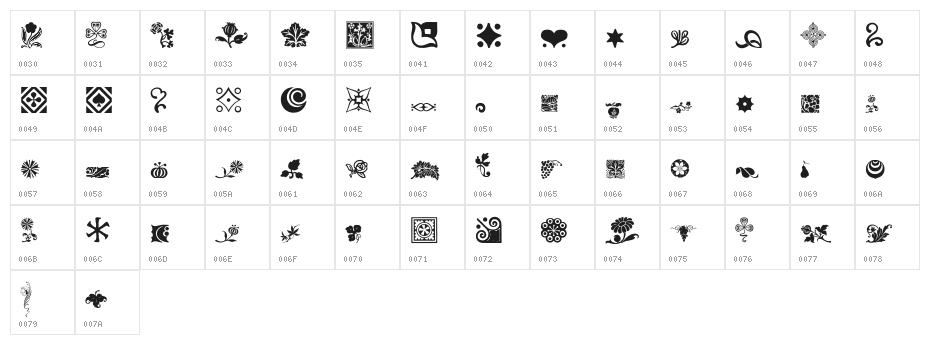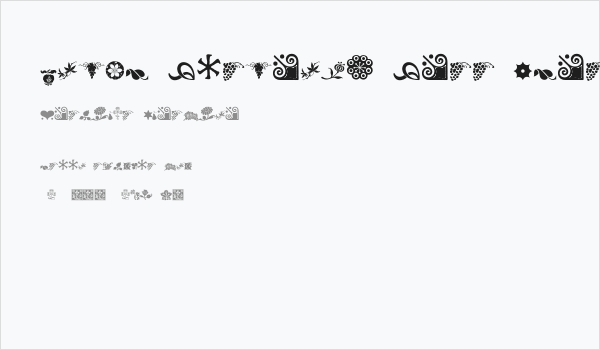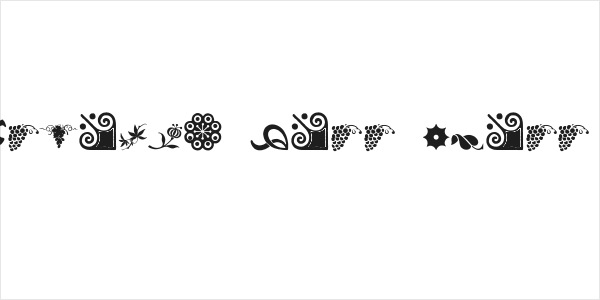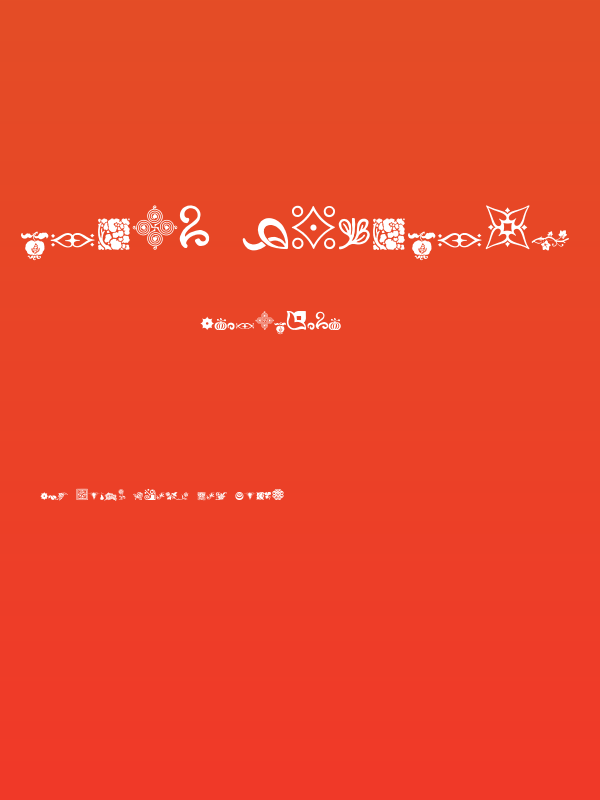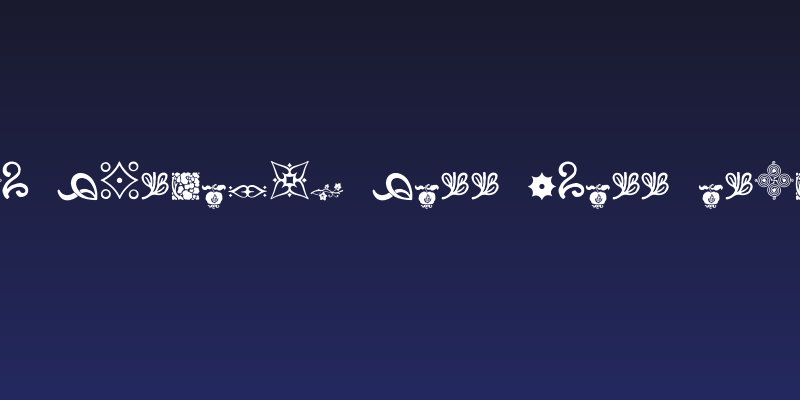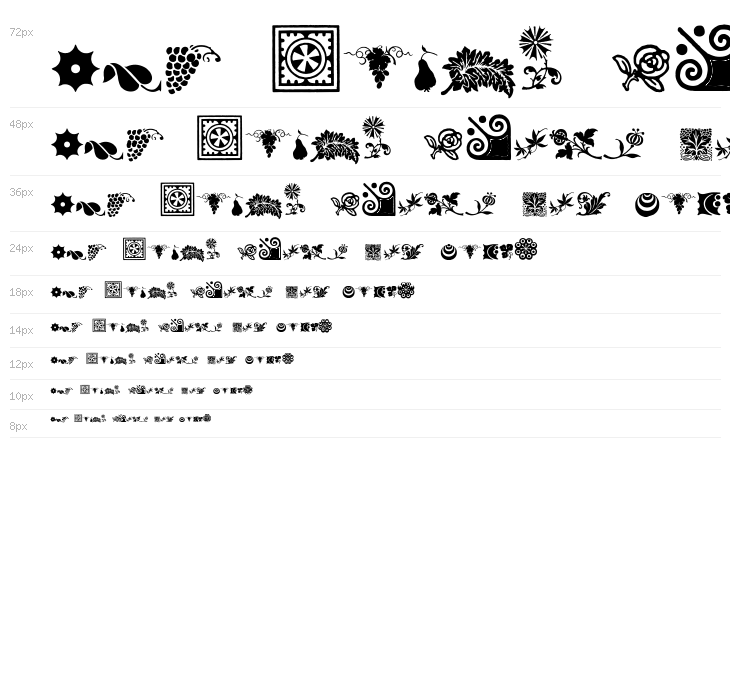
Rough Fleurons Free Three Regular Font
Rough Fleurons Free Three Regular Description
This collection features an array of intricate fleurons and decorative elements, each with a unique design that showcases a blend of floral and geometric motifs. The designs range from simple, elegant shapes to more complex and ornate patterns, making them versatile for various decorative purposes. The elements are predominantly symmetrical, with a focus on balance and harmony, often incorporating curves and swirls that add a sense of movement and fluidity. These designs are perfect for adding a touch of elegance and sophistication to any project, whether used individually or in combination.
| Use Case | Decorative elements |
| Proposed Projects | Ideal for invitations, stationery, book covers, and decorative borders. |